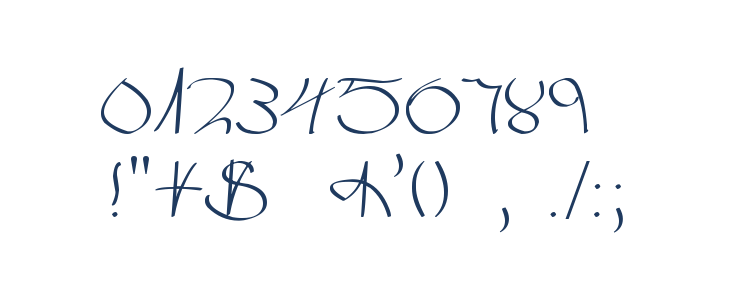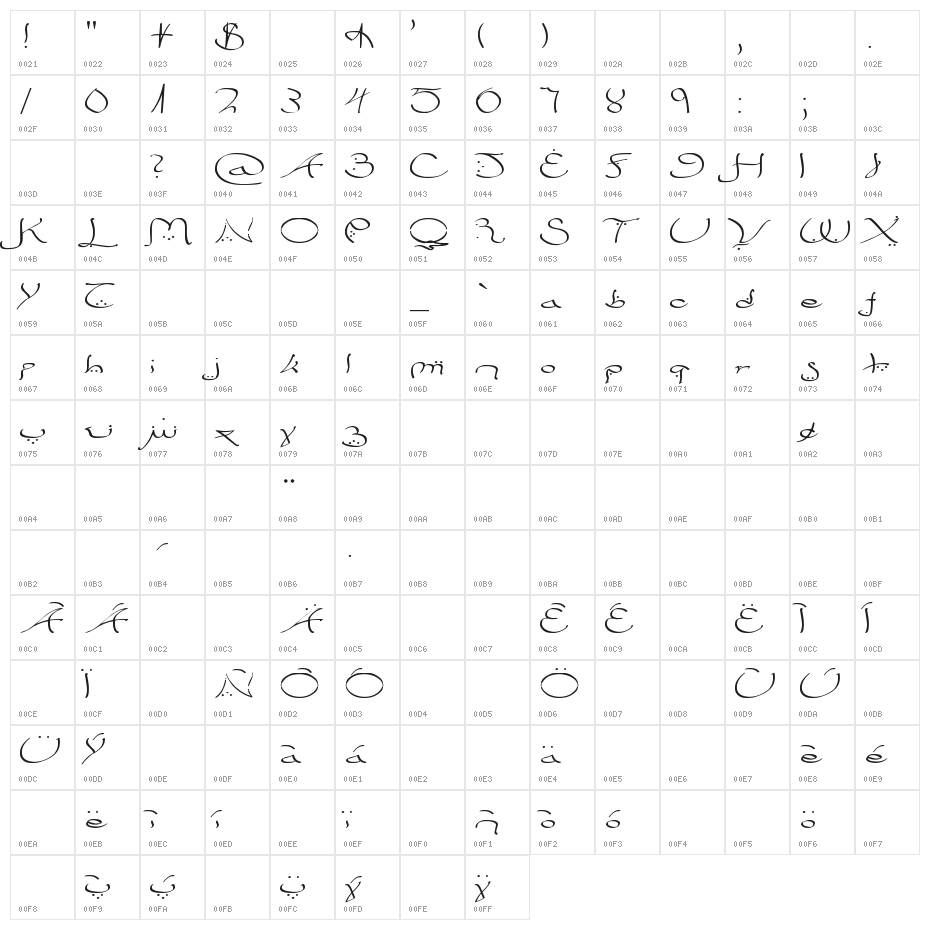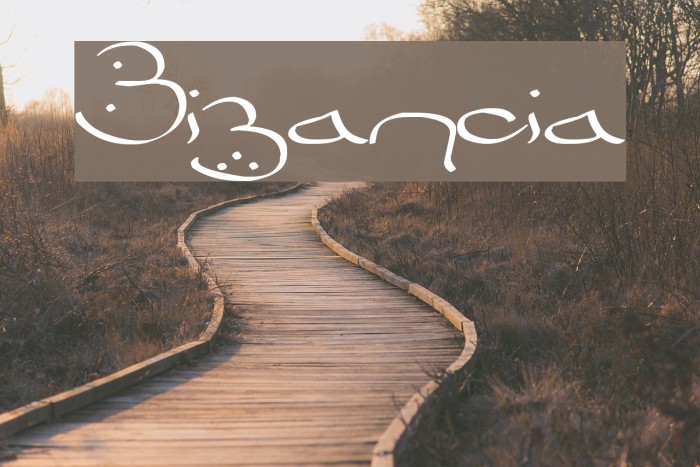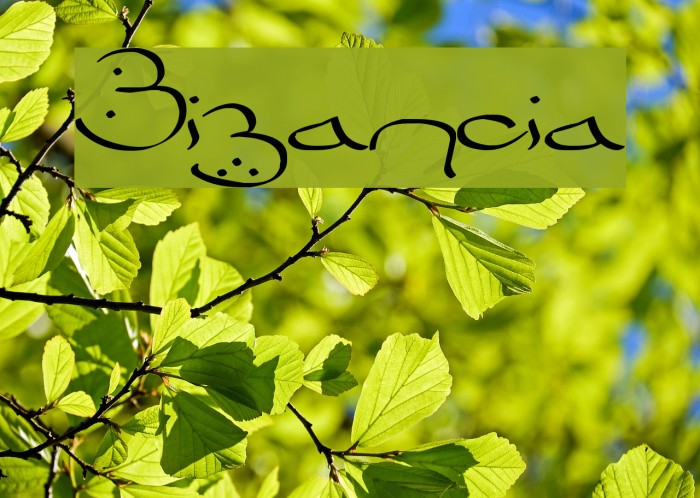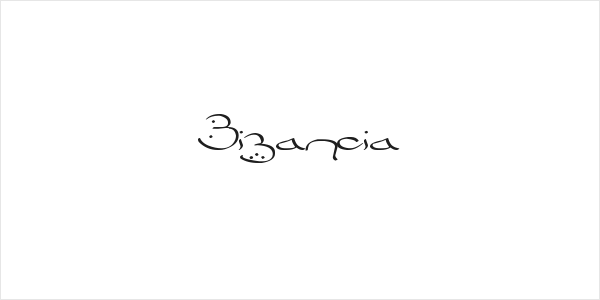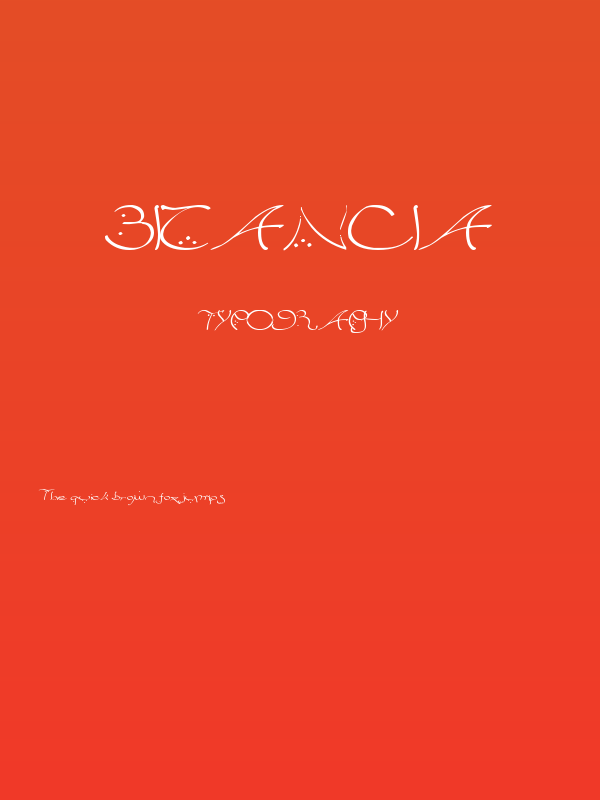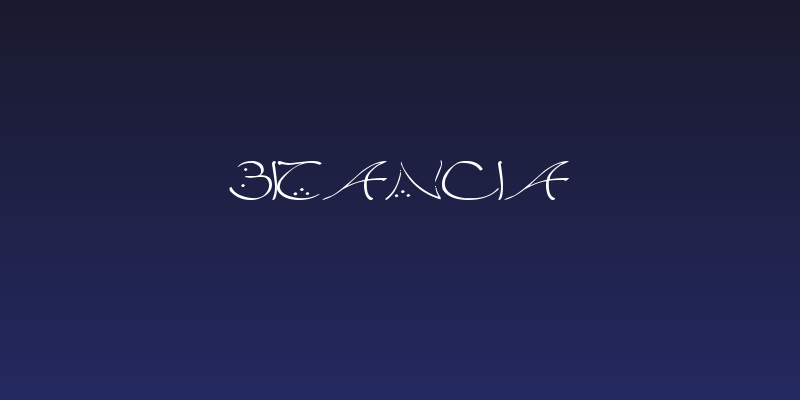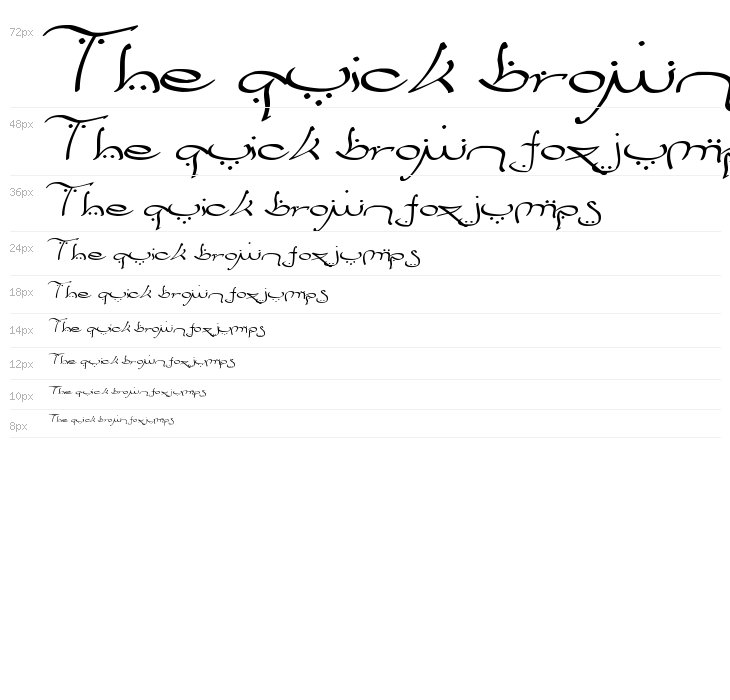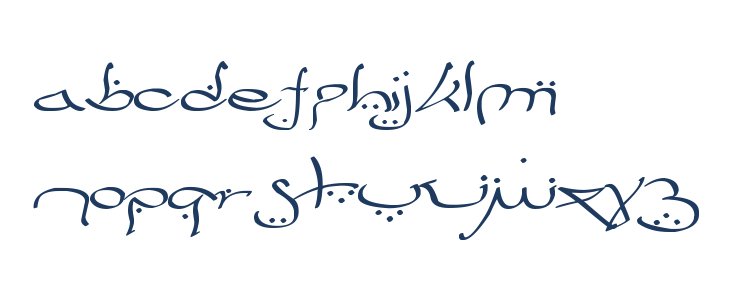
Bizancia Font
Bizancia Description
This font features an ornate and decorative style with intricate details and flourishes. Each character is adorned with unique embellishments, giving it a whimsical and artistic appearance. The letters have a flowing, cursive-like quality, yet maintain a structured form. The uppercase and lowercase letters are distinct, with the uppercase characters being more elaborate. Numbers and special characters follow the same decorative theme, ensuring a cohesive look throughout. The font's unique style makes it stand out, offering a blend of elegance and creativity.
| Use Case | Headlines, Logos, Artistic projects |
| Proposed Projects | Ideal for invitations, greeting cards, artistic projects, branding, and decorative headlines. |